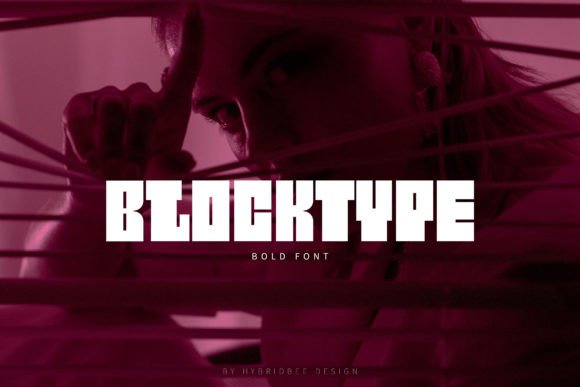
The Blocktype Font: A Bold and Modern Display Font for Creative Projects
Have you ever been in the middle of working on a design project, and suddenly, you’re stuck on finding the perfect font? I recall a particular project where I was tasked with creating a bold and eye-catching poster for a music festival. The client wanted a font that would stand out and scream “festival vibes.” After hours of scouring through font libraries, I stumbled upon Blocktype Font, and it instantly became the star of the show.
Blocktype is a bold display font with a contemporary and distinct look. It includes uppercase letters, lowercase letters, numerals, and some punctuations in three weights: regular, semi-bold, and bold. This font gives a strong and striking vibe, making it perfect for creating posters, headlines, branding, packaging, logos, web design, and more.
An Honest Review of Blocktype Font
What I Love About Blocktype Font
- ✨ Unique and Distinctive Look: Blocktype Font has a one-of-a-kind design that sets it apart from other fonts. Its bold and modern look makes it perfect for grabbing attention.
- ✅ Versatility: With three weights to choose from (regular, semi-bold, and bold), you can use Blocktype Font for a variety of projects, from subtle backgrounds to bold headlines.
- 🌈 Legibility: Despite its bold nature, Blocktype Font remains surprisingly legible, even at smaller sizes.
While Blocktype Font is an excellent choice for many projects, there are a few things to keep in mind:
- ⚠️ Limited Punctuation: Blocktype Font only includes some punctuations, which might limit its use in certain contexts.
- 🤔 Not Suitable for Body Text: Due to its bold nature, Blocktype Font is best used for headlines and titles rather than body text.
The Backstory of Blocktype Font
Blocktype Font was designed with the goal of creating a bold and modern display font that would stand out in any design. The designer, inspired by the urban landscape and modern typography, aimed to create a font that would be both striking and legible. With its unique look and versatility, Blocktype Font has become a popular choice among designers and creative hobbyists.
Q: What is Blocktype Font?
A: Blocktype Font is a bold display font with a contemporary and distinct look, available in three weights: regular, semi-bold, and bold.
Q: What can I use Blocktype Font for?
A: Blocktype Font is perfect for creating posters, headlines, branding, packaging, logos, web design, and more.
Q: Is Blocktype Font legible?
A: Yes, despite its bold nature, Blocktype Font remains surprisingly legible, even at smaller sizes.
Q: Can I use Blocktype Font for body text?
A: No, Blocktype Font is best used for headlines and titles rather than body text due to its bold nature.